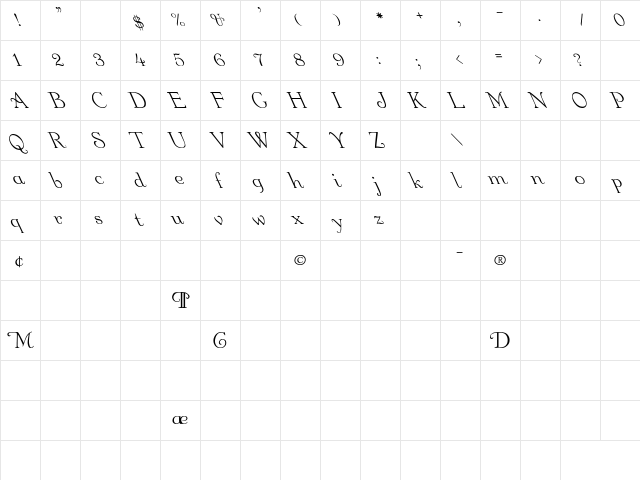
Garton Leftified Regular Regular
Design Context for Garton Leftified Regular Typeface
Garton Leftified Regular is a composed and adaptable typeface that performs quietly and consistently across a wide range of design contexts.